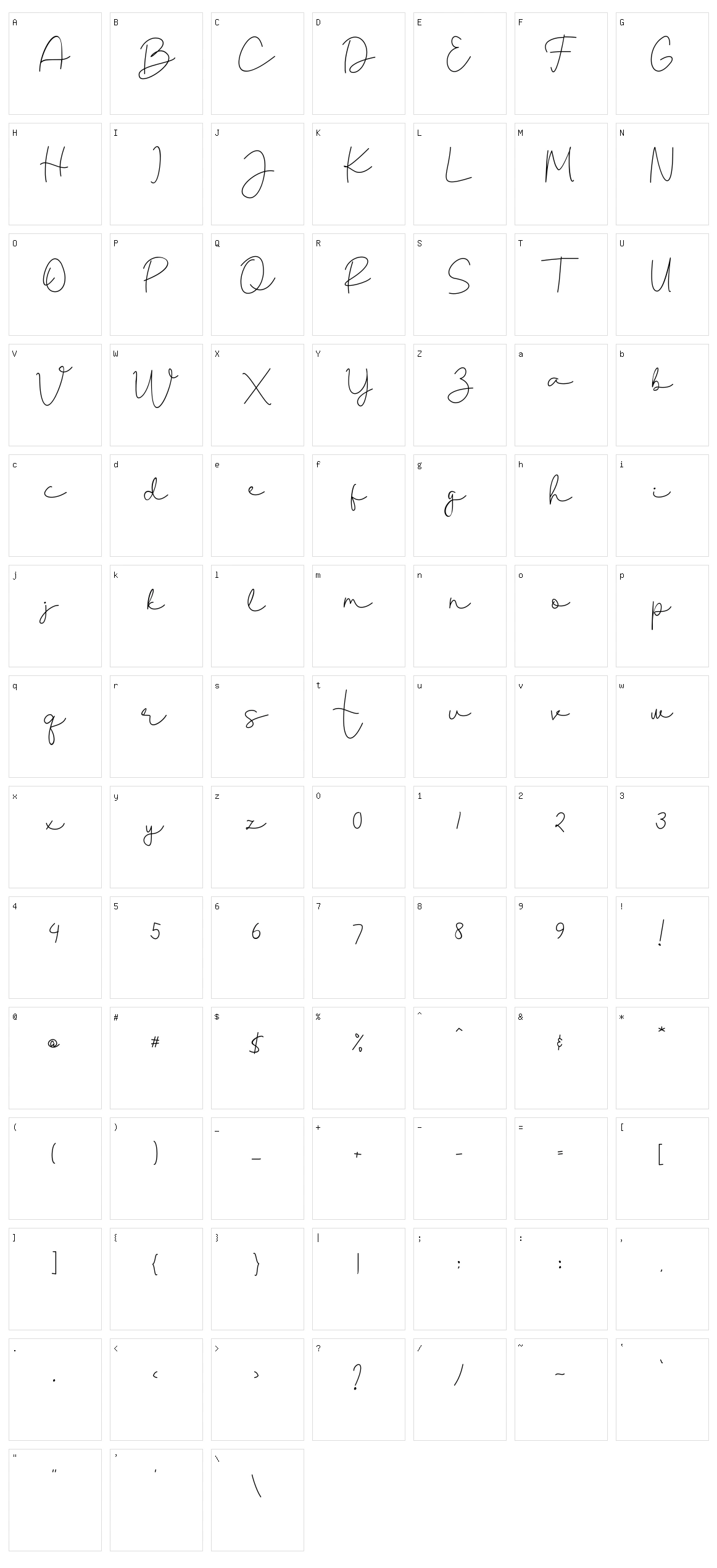
The free font Bridgeth is carefully designed by Tiny Hand Letter, showcasing a thoughtful balance of creativity and usability and falls under the Script font style. When you download the ZIP file, it contains only 39.29 KB of font files, making it lightweight and quick to download. Please review the license details below to understand permitted usage and distribution rights. If license information is not available, we recommend using this font for personal projects only or contacting the author directly for commercial usage permissions.